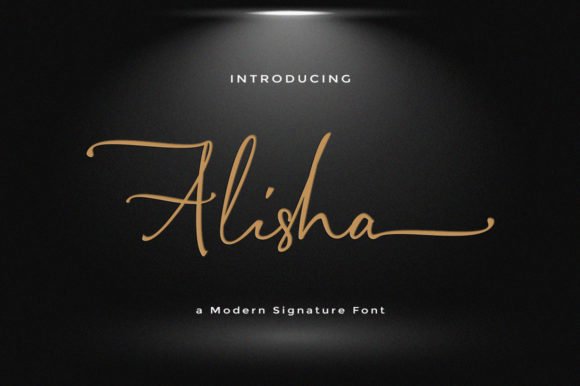
The Perfect Touch: Elevating Your Designs with Alisha Signature Font
There’s nothing quite like the thrill of creating something from scratch – the blank page, the spark of inspiration, and the joy of watching your design come to life. For designers, it’s a feeling that never gets old. And when it comes to adding that extra special touch to our work, a beautiful font can make all the difference. Enter the Alisha Signature Font, a stunning script that exudes elegance and charm.
Whether you’re crafting wedding invitations, thank you cards, or business cards, the Alisha Signature Font is the perfect companion to elevate your designs. Its PUA encoded feature allows for effortless access to all its glyphs and swashes, giving you the freedom to experiment and create unique, one-of-a-kind designs. As a designer, you’ll appreciate the value this font brings to your work – a touch of sophistication and personality that sets your designs apart from the rest.
- Unique Characteristics: Hand-drawn, cursive script with elegant flourishes, perfect for signatures, invitations, and personal stationery.
Alisha Signature Font Review
I recently had the chance to work with the Alisha Signature Font, and I must say it’s a unique and stylish choice for designers. Here are my honest thoughts on this font.
- Unique and elegant design: Alisha Signature Font is a beautiful blend of modern and vintage elements, making it perfect for designers who want to add a touch of sophistication to their work.
- Highly legible: The font is easy to read, even at smaller font sizes, making it ideal for body text or headings.
- Wide character set: Alisha Signature Font includes a wide range of characters, including international characters, making it suitable for designers who work with clients from diverse backgrounds.
- Limited expressiveness: While the font is elegant, it may not be the best choice for designers who want to convey strong emotions or opinions through their work.
- Not suitable for bold headlines: Due to its elegant design, Alisha Signature Font may not be the best choice for bold headlines or titles, as it may get lost in the noise.
Overall, Alisha Signature Font is a solid choice for designers who want to add a touch of sophistication and elegance to their work. While it may have some limitations, it’s a great addition to any designer’s toolkit.
The Alisha Signature Font is perfect for:
1. Creating professional-looking business cards and letterheads.
2. Designing eye-catching social media graphics and advertisements.
3. Adding a touch of elegance to wedding invitations and event materials.